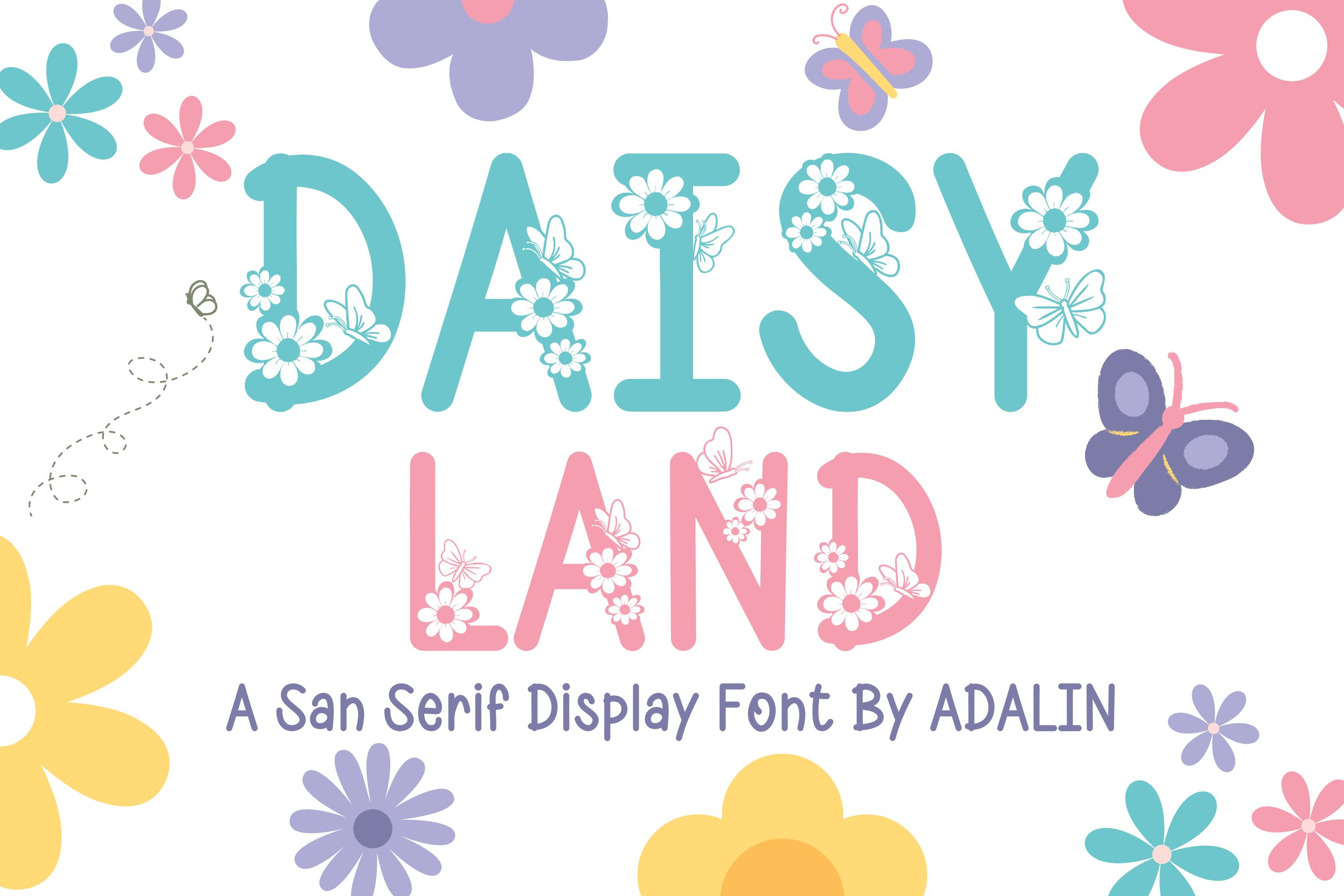
Daisy Land - Display Font
Daisy Land Font is perfect for crafting, logos, branding, pantry labels, stickers, greeting cards, procreate, shirts, posters, social media, planner prints and more!
- Daisy Land Font - type in uppercase and lowercase